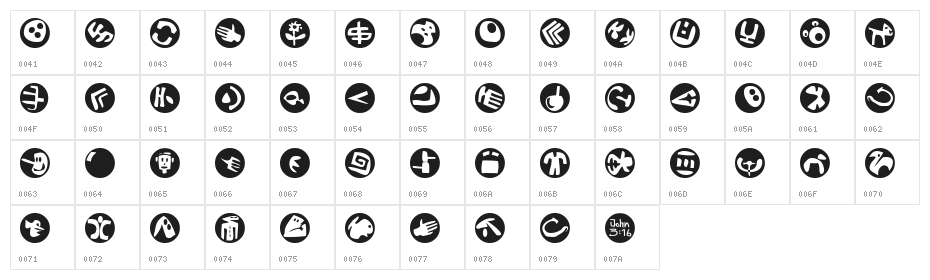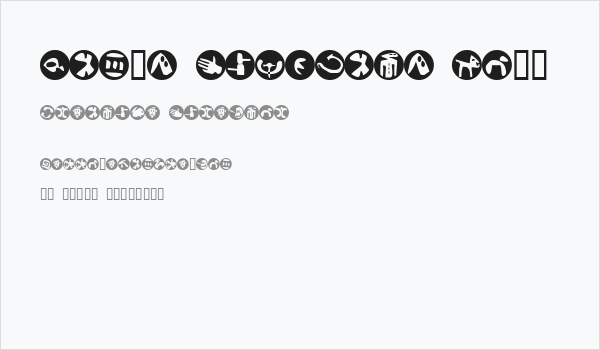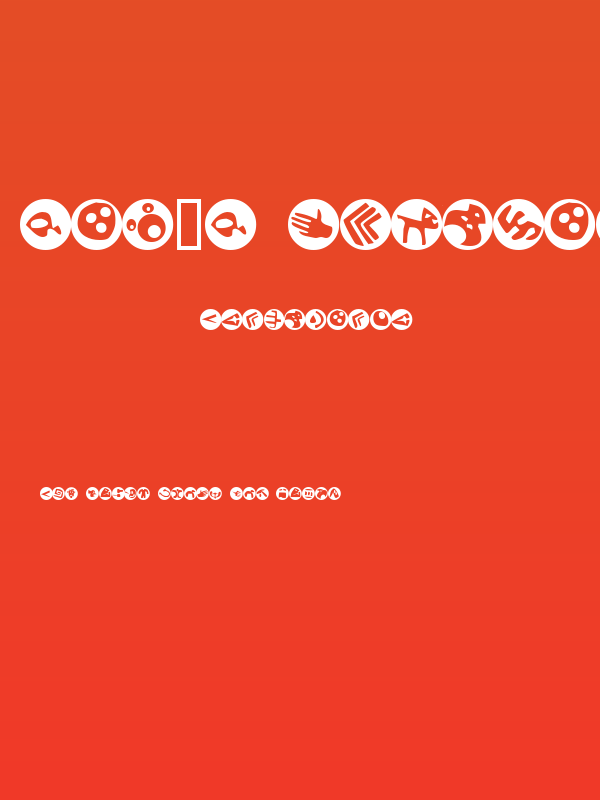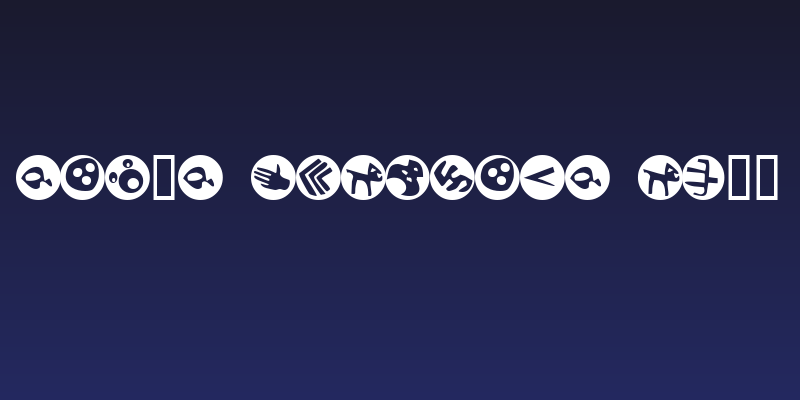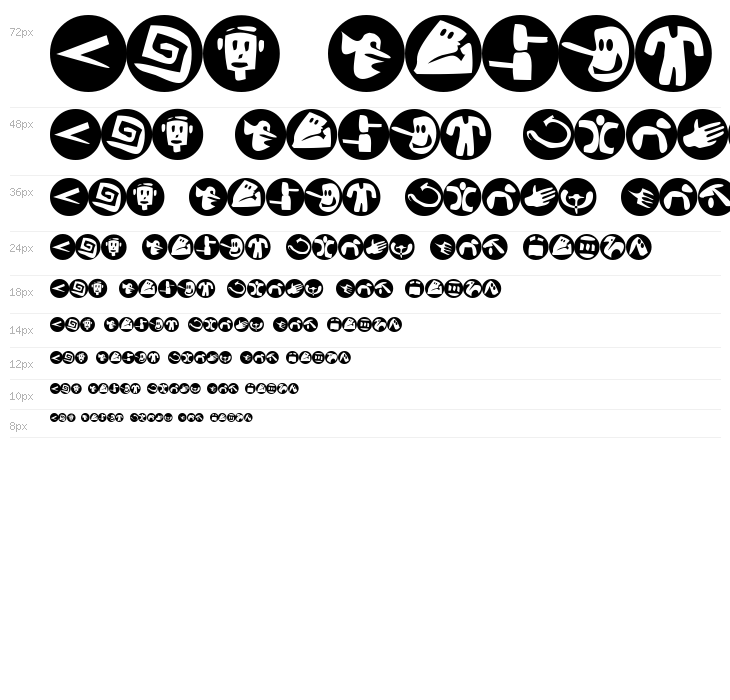
Sam's Dingbats No.2 Font
Sam's Dingbats No.2 Description
This collection features a series of unique and playful symbols enclosed within circular shapes. Each character is distinct, showcasing a variety of abstract and representational designs, from hands and animals to geometric shapes and whimsical figures. The bold, high-contrast style ensures that each symbol stands out clearly against its background, making it ideal for decorative purposes. The uniform circular enclosures provide a cohesive look, while the diverse range of symbols offers versatility in application. This set does not follow traditional alphabetic or numeric conventions, focusing instead on visual storytelling and artistic expression.
| Use Case | Logos, Decorative elements, Creative projects |
| Proposed Projects | This font is perfect for creative projects such as designing logos, crafting unique invitations, or adding a whimsical touch to digital artwork. It can also be used in educational materials to engage young audiences or in branding to convey a playful and |